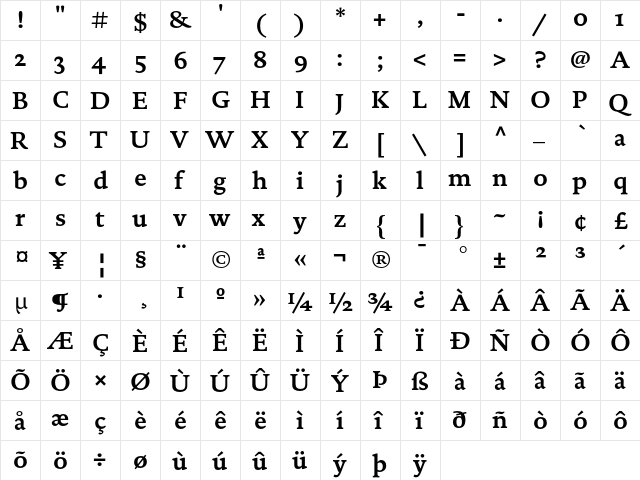
DTL Documenta ST Bold Font Preview
DTL Documenta ST Bold
Design Context for DTL Documenta Typeface
DTL Documenta is a composed and adaptable typeface that performs quietly and consistently across a wide range of design contexts. Its bold stroke weight gives it real presence on the page.